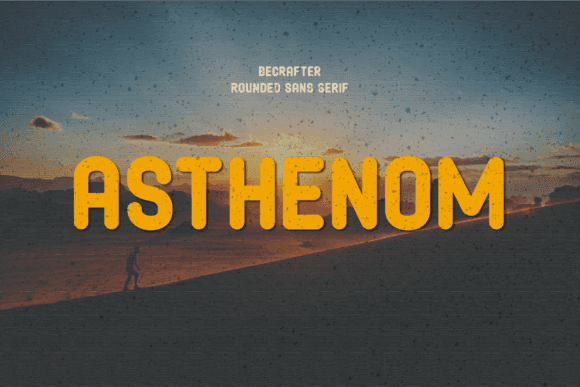
Asthenom Rounded Font for Crafting, Logos and Print Projects
This font download features a rounded sans-serif typeface tailored for versatile crafting and branding applications. Asthenom Rounded offers balanced proportions and soft geometry, making it a top choice for logos, packaging, and printable materials that need a modern yet approachable tone. As a font entity, it ensures professional output across both print and digital media. Its clean lines and friendly curves enhance readability, making it suitable for diverse applications, from business cards to websites. Moreover, Asthenom Rounded stands out as an ideal autines font for creative design, providing an aesthetic that resonates with both contemporary and classic styles. This adaptability ensures that it can easily elevate any project, adding a touch of sophistication without sacrificing warmth. Its adaptability extends to various design projects, ensuring consistency and readability across different platforms. Designers often pair Asthenom Rounded with complementary styles, including the avignon font for logo design, to create impactful visuals. This combination not only enhances aesthetic appeal but also reinforces brand identity effectively.
Whether you’re working on business cards, custom merch, or product signage, Asthenom Rounded brings warmth and clarity to your design language while remaining fully compatible with crafting and desktop design platforms. With its sleek curves and approachable style, Asthenom Rounded ensures that your brand's message is communicated effectively across various mediums. It's particularly well-suited for creating standout visuals, making it an excellent choice when selecting an atmos font for logo design. Elevate your projects with this versatile typeface that balances modern aesthetics with readability.
- Logo designs and brand collateral
- Printable signage, labels, and planners
- Custom gifts, apparel, and merchandise
- Packaging for small business products
- Event decor and stationery
- Rounded edges for a soft, modern finish
- Great readability for branding and product design
- Perfect for minimalist or playful aesthetics
A: Absolutely. Asthenom Rounded is ideal for printed crafts like labels, tags, stickers, and packaging. Its versatility makes it a go-to choice for both professional designers and hobbyists alike. Additionally, the clean lines and playful curves of this bagstore font for design projects can enhance any creative endeavor, ensuring that your work stands out. Whether you're crafting personalized gifts or branding materials, Asthenom Rounded delivers a polished and cohesive look. Its playful curves and distinctive style make it a great choice for designs that demand attention. Additionally, the versatility of this font allows it to shine as a balloon font for creative projects, adding a fun and whimsical touch. Whether you're creating something for a party or for everyday use, Asthenom Rounded enhances the visual appeal effortlessly.
| Design Style | Rounded sans-serif | Geometric sans-serif | Condensed sans-serif |